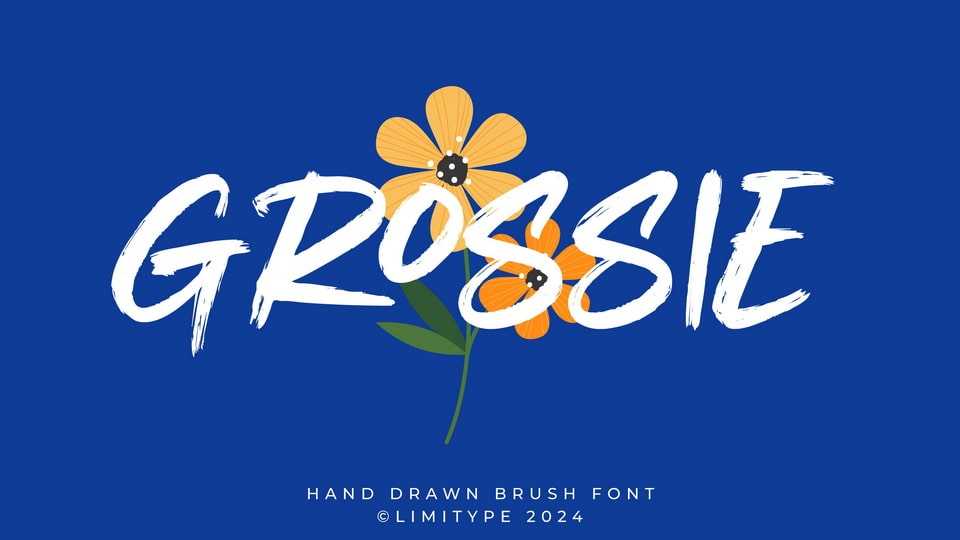
Download Grossie font, a brush typeface made with natural hand strokes with a fun and modern impression, this font is suitable for your designs that need a playful, cheerful and fresh touch.